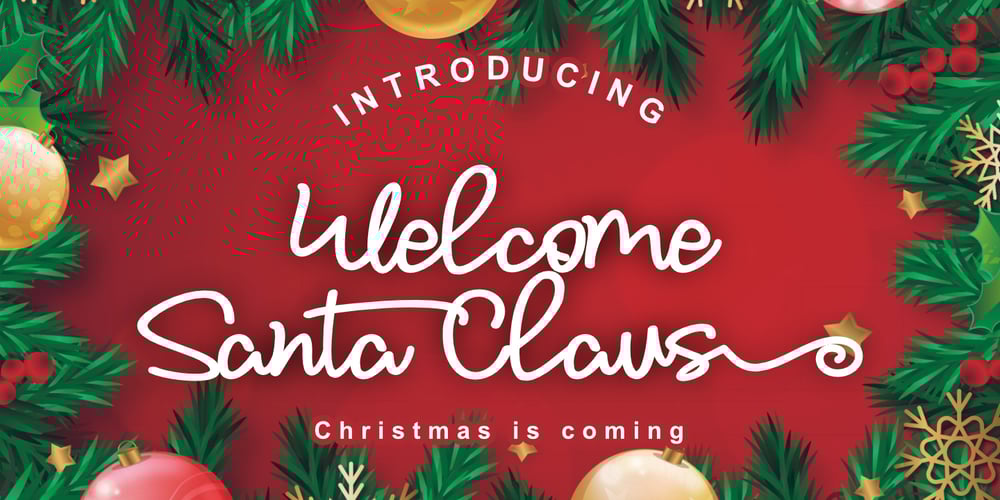
Welcome Santa Claus Font Family was designed by Stephanus Prabowo and published by Andrey Font Design. Welcome Santa Claus contains 1 styles and family package options. Welcome Santa Claus is a beautiful handwritten font. Its natural and unique style makes it incredibly fitting to a large pool of designs. The only limit is your imagination!This font is PUA encoded which means you can access all of the glyphs and swashes with ease!